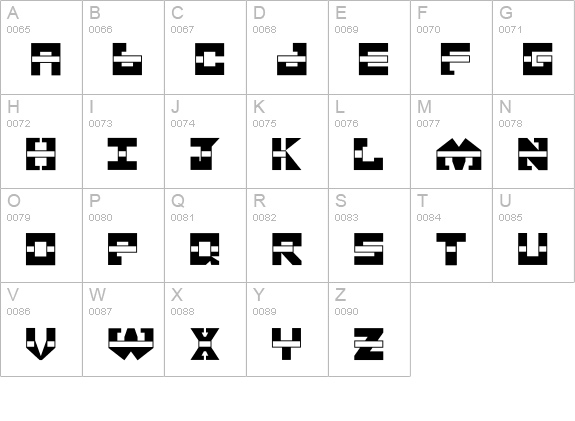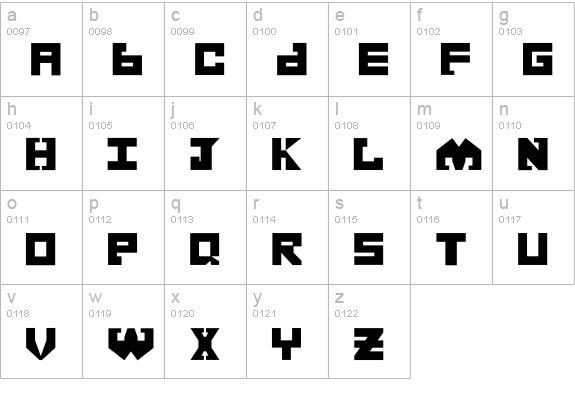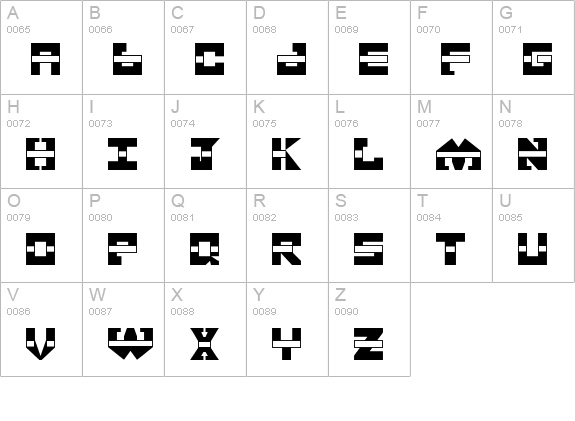
Demonized Font Details
Introducing the mesmerizing and captivating Demonized font! This font is the perfect combination of darkness, mystery, and fear, making it ideal for adding a touch of the supernatural to any design project. With its sharp and edgy letterforms, Demonized font commands attention and leaves a lasting impression on the viewer. But what sets Demonized font apart is not just its stunning aesthetics, but also the fact that it is completely free! Yes, you read that right. This extraordinary font is freely available to download at FontsMarket.com. Now you can bring a touch of the demonic to your designs without breaking the bank. Whether you're working on a spooky Halloween invitation, a chilling book cover, or a haunting poster, Demonized font will surely elevate your design to new heights. Its unique and intricate details create an atmosphere of darkness and intrigue, effortlessly capturing the essence of the supernatural. With its wide range of glyphs and characters, Demonized font offers versatility and flexibility, allowing you to unleash your creativity and explore various design possibilities. From bold headlines to subtle accents, this font is capable of transforming any ordinary design into a truly extraordinary one. So why wait? Embrace the dark side and download the Demonized font today, completely free at FontsMarket.com. Unleash your creativity and let this font take your designs to a whole new level of darkness and allure. Get ready to captivate your audience and leave them spellbound with the mesmerizing Demonized font.